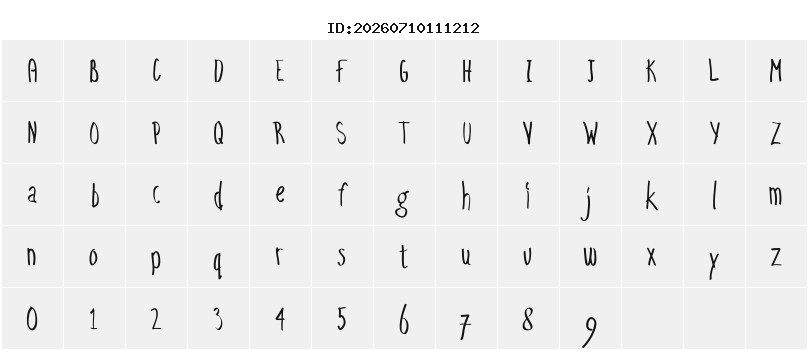
Easy Going Preview
• Font Name: Easy Going
• Full Font Name: Easy GoingRegular
About Easy Going.ttf
Easy Going.ttf is a modern, elegant sans-serif font designed for ultimate readability and visual harmony. Perfect for branding, headlines, web design, and print materials.